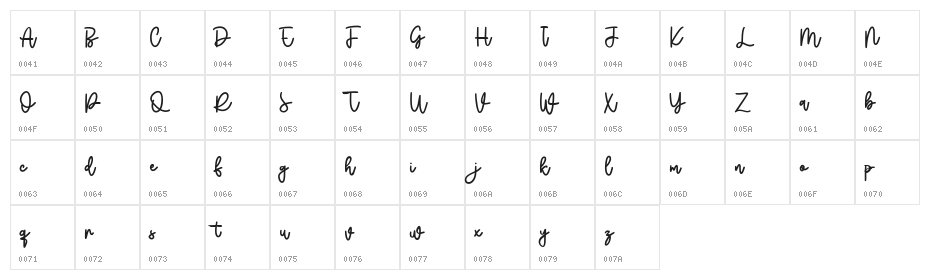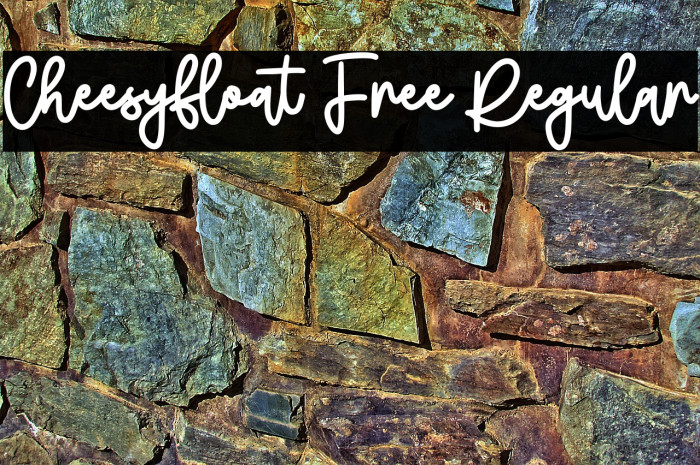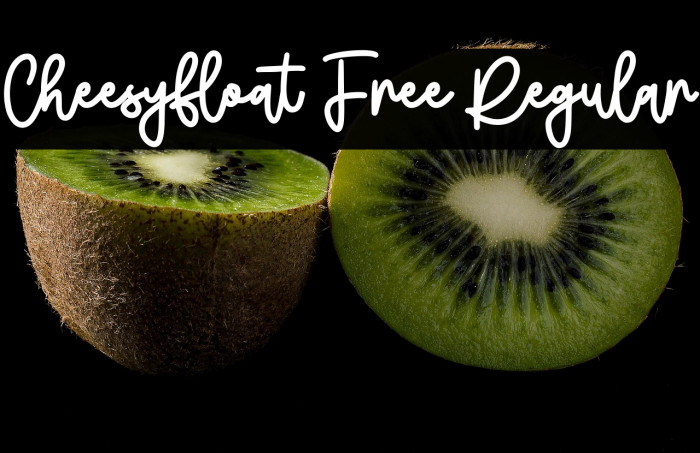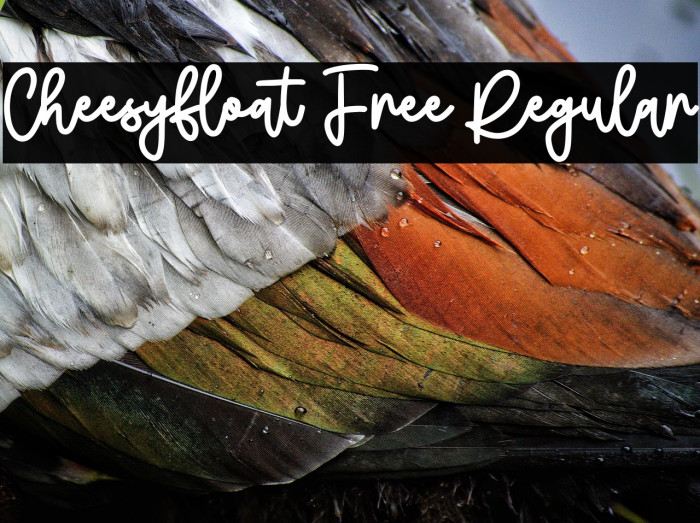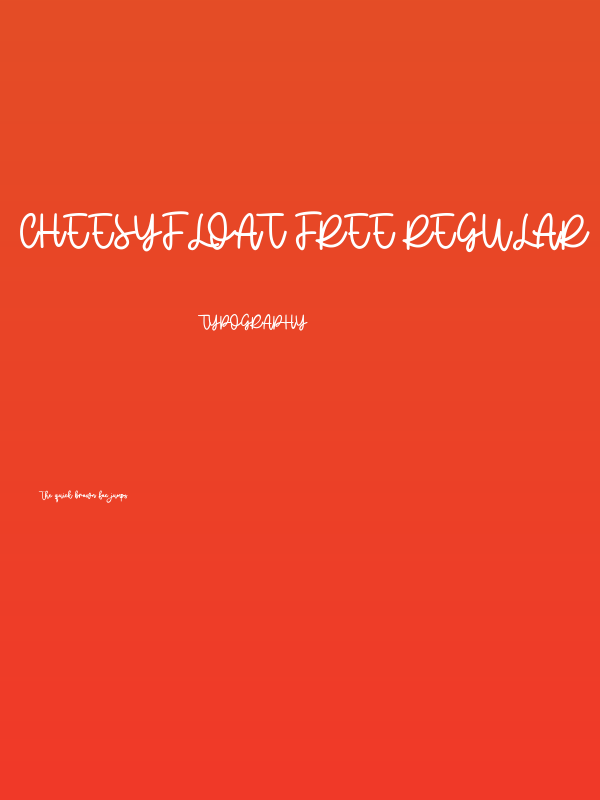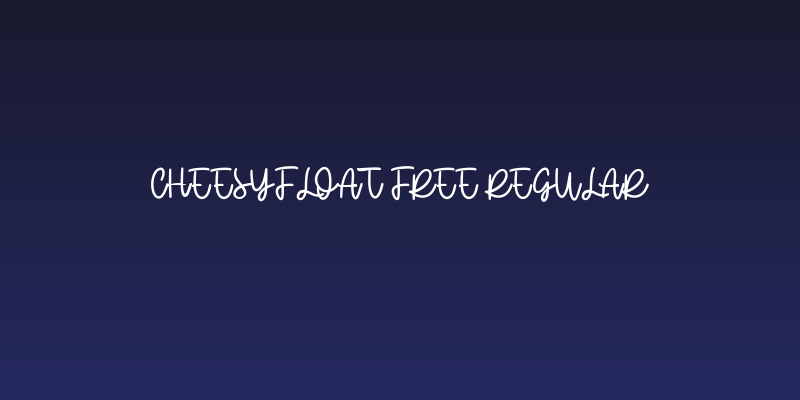
Cheesyfloat Free Regular Font
Cheesyfloat Free Regular Description
This font features a playful and casual handwritten style, characterized by its smooth, flowing lines and slightly irregular letterforms. The uppercase and lowercase letters maintain a consistent style, with rounded edges and a slight slant, giving it a relaxed and approachable appearance. The font includes a full set of uppercase and lowercase letters, numbers, and a selection of special characters, making it versatile for various design needs. Its informal and friendly aesthetic makes it suitable for projects that require a personal touch.
| Use Case | Logos, Headlines, Informal Text |
| Proposed Projects | Ideal for greeting cards, personal invitations, social media graphics, and informal branding projects. |